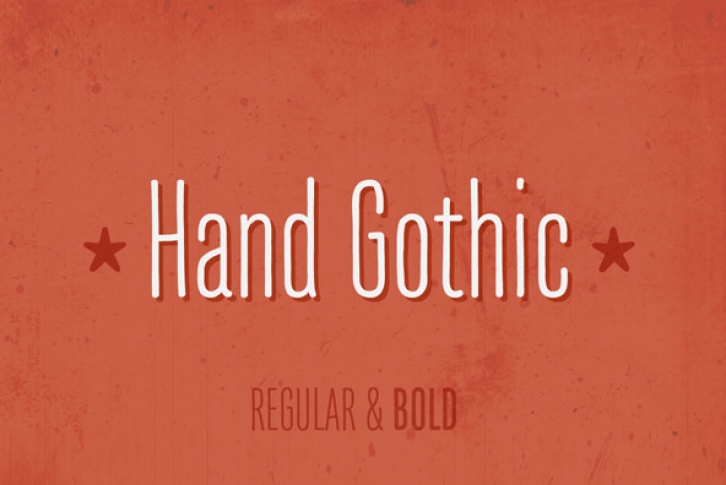
The fonts, provided in OpenType format, include support for most European languages and some OpenType extras : ligatures, alternate “A†and “gâ€, case-sensitive forms and a handful set of arrows and icons.